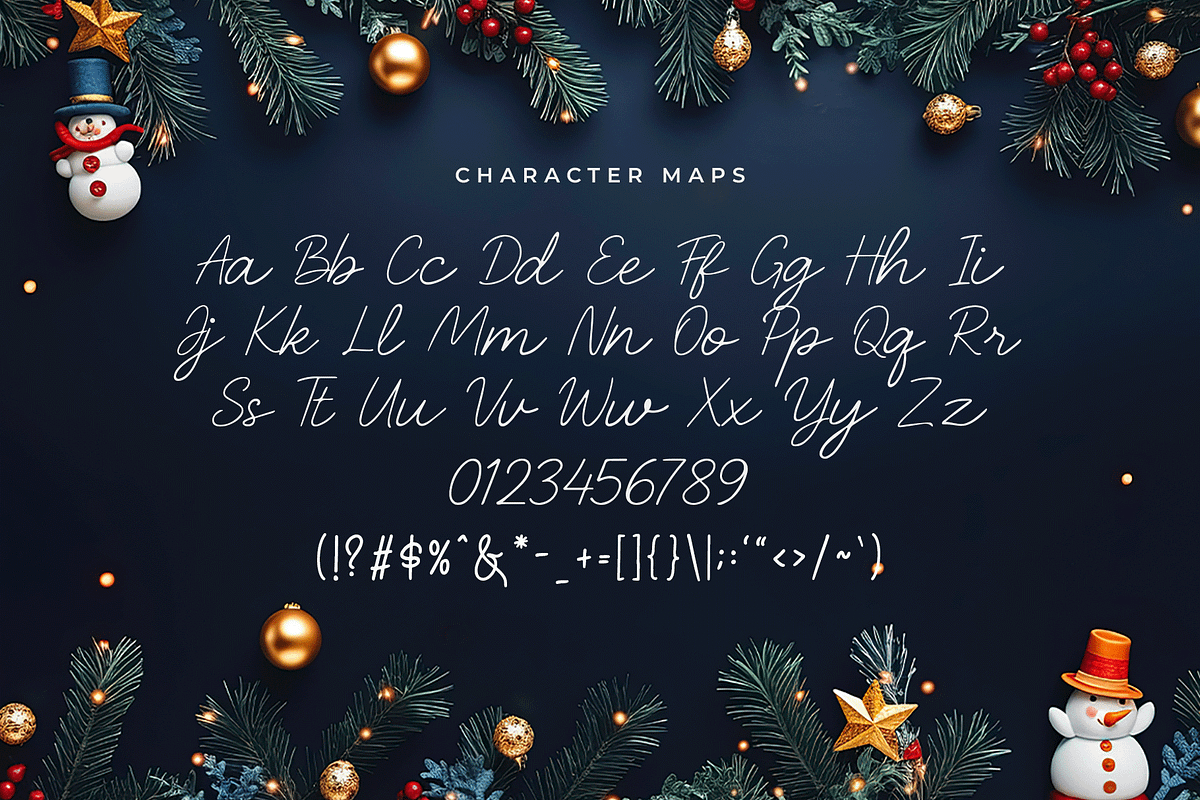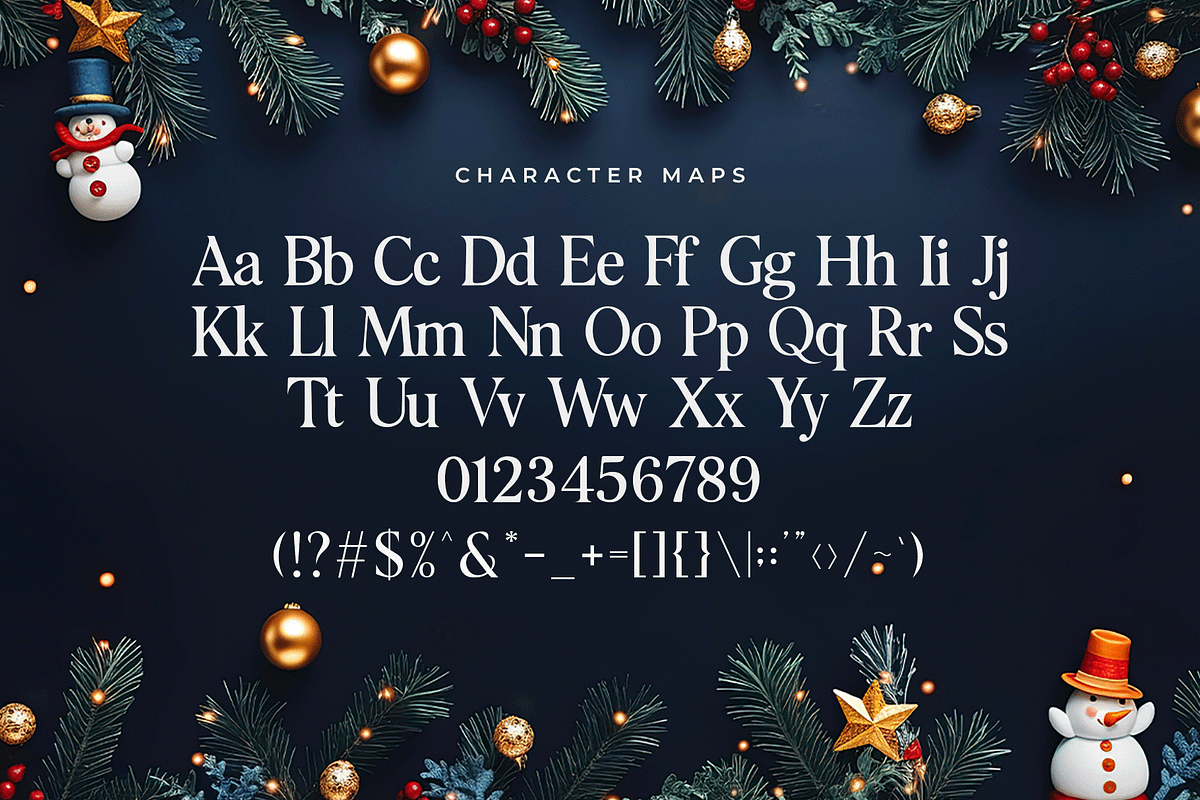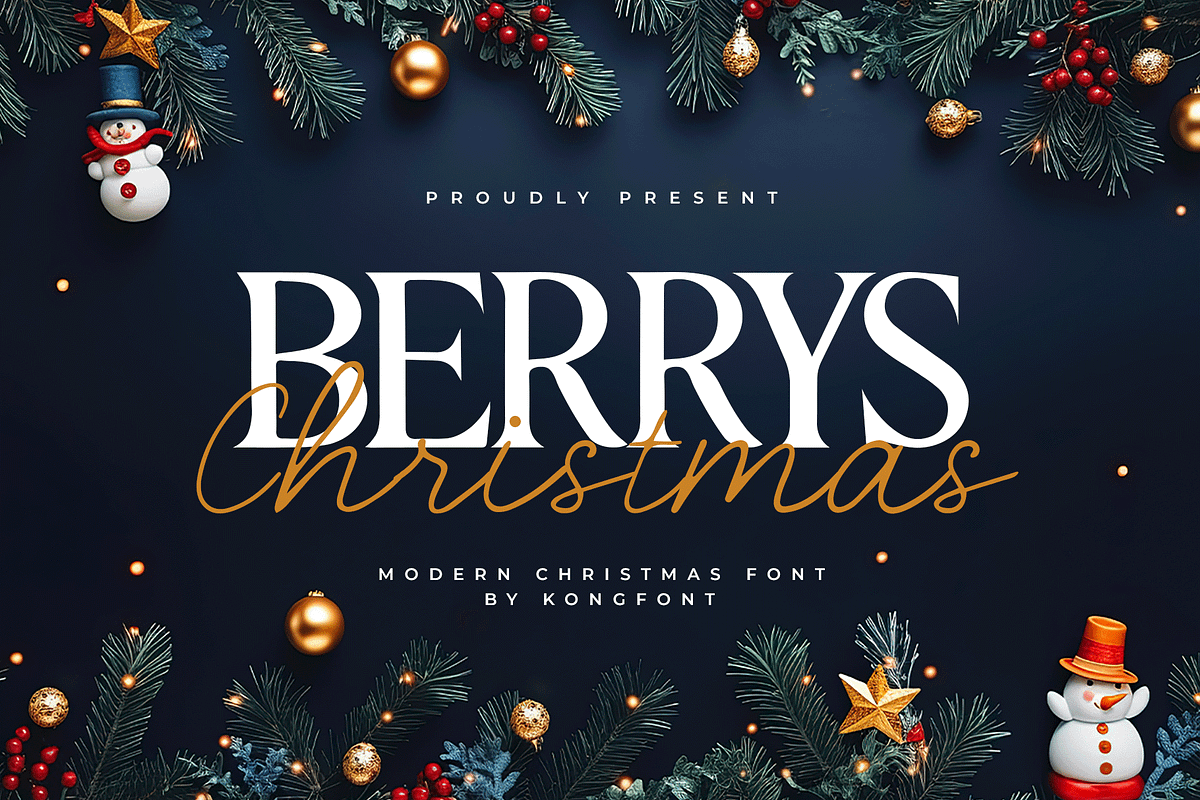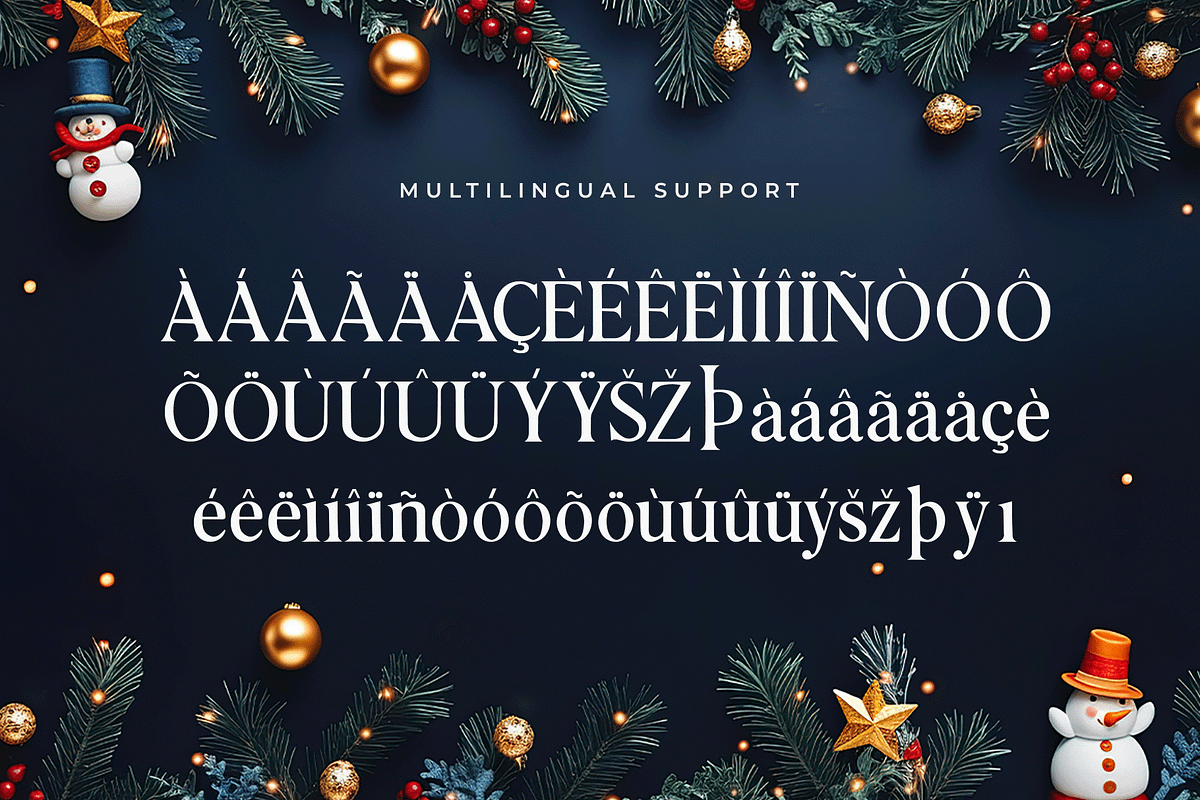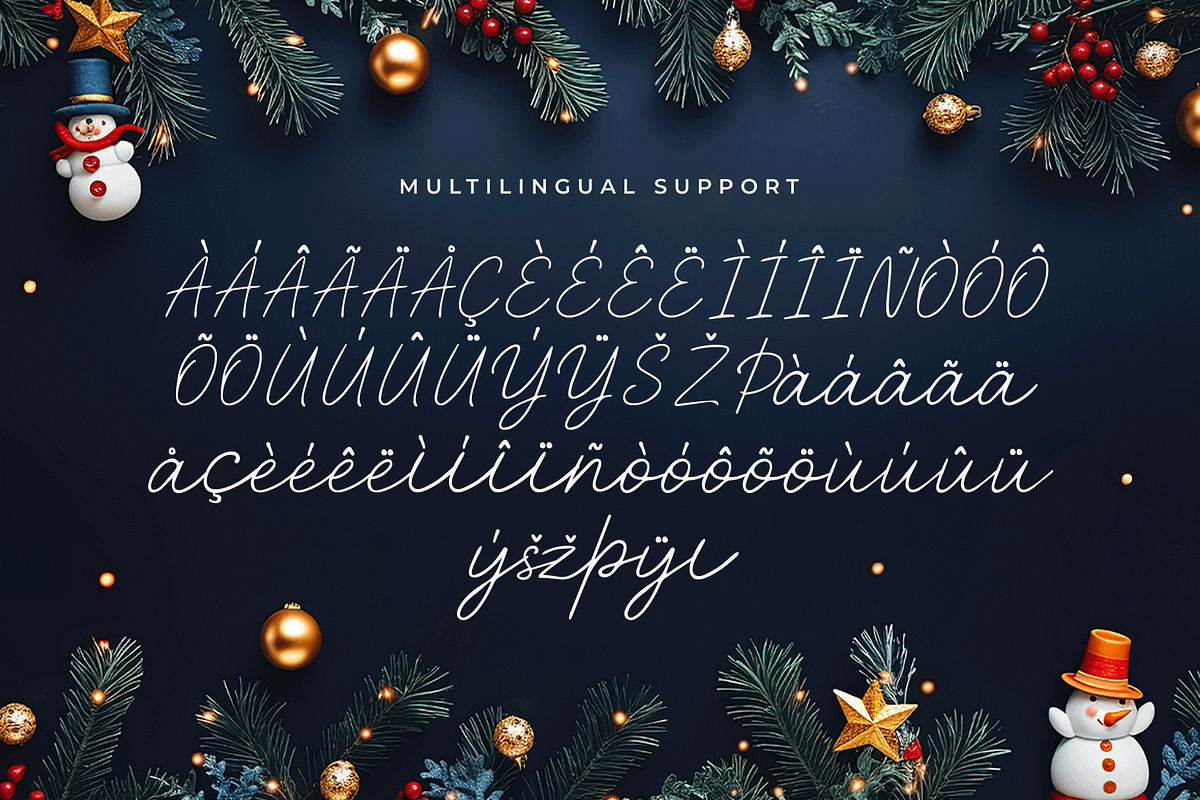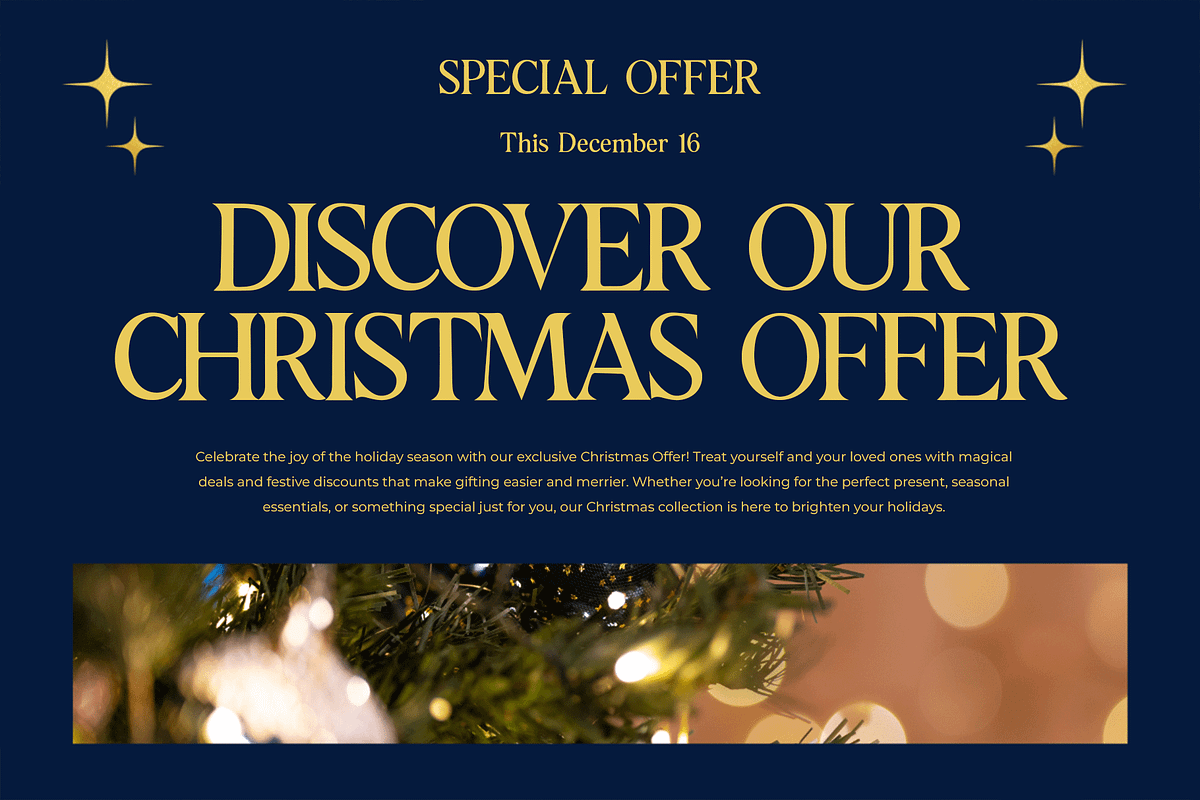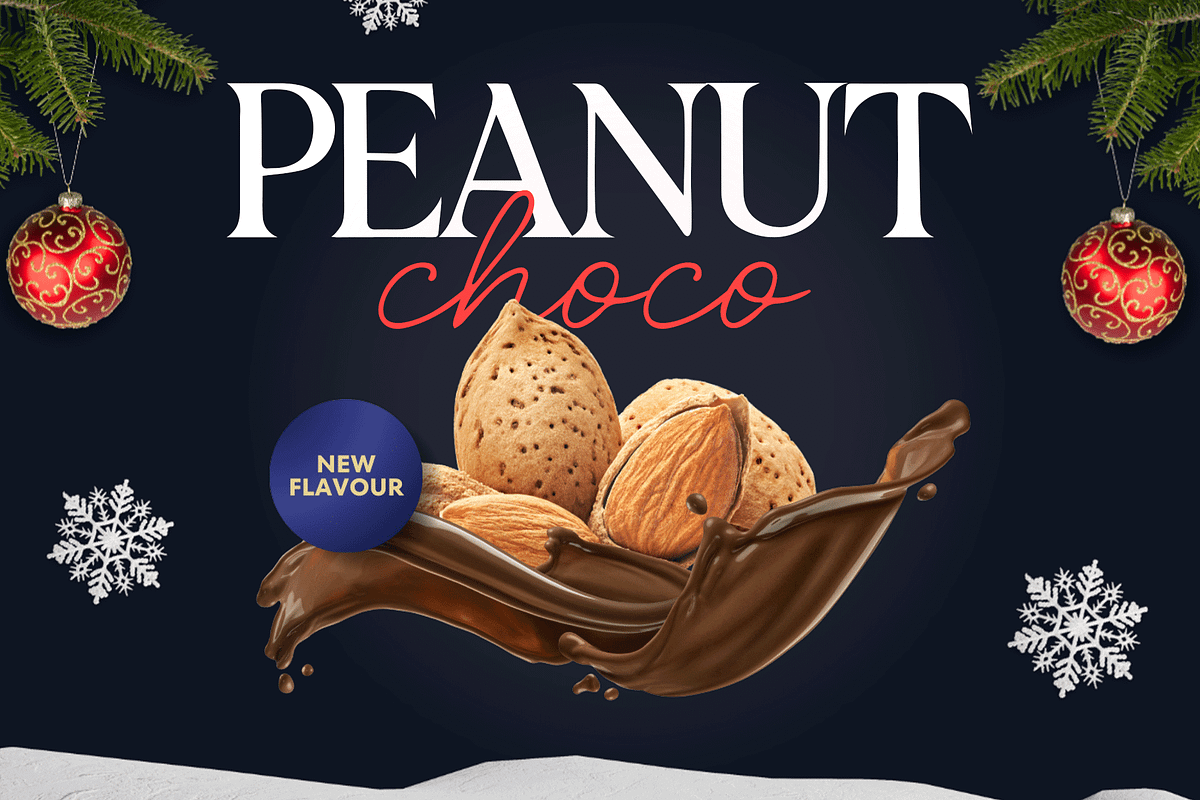
Berry Christmas–Modern ChristmasFont
Berry Christmas – Modern Christmas Font
Berry Christmas is a modern Christmas font designed to capture the magic and warmth of the holiday season. With playful curves and festive charm, this typeface is perfect for adding a joyful spirit to your creative projects.
Ideal for Christmas cards, holiday invitations, festive posters, seasonal branding, product packaging, and social media content, Berry Christmas brings a merry and welcoming vibe that instantly spreads cheer. Its unique letterforms blend modern design with whimsical holiday flair, making it versatile for both fun and elegant projects.
The font comes with uppercase, lowercase, numbers, punctuation, and multilingual support—giving designers everything they need to craft heartfelt and memorable holiday designs.